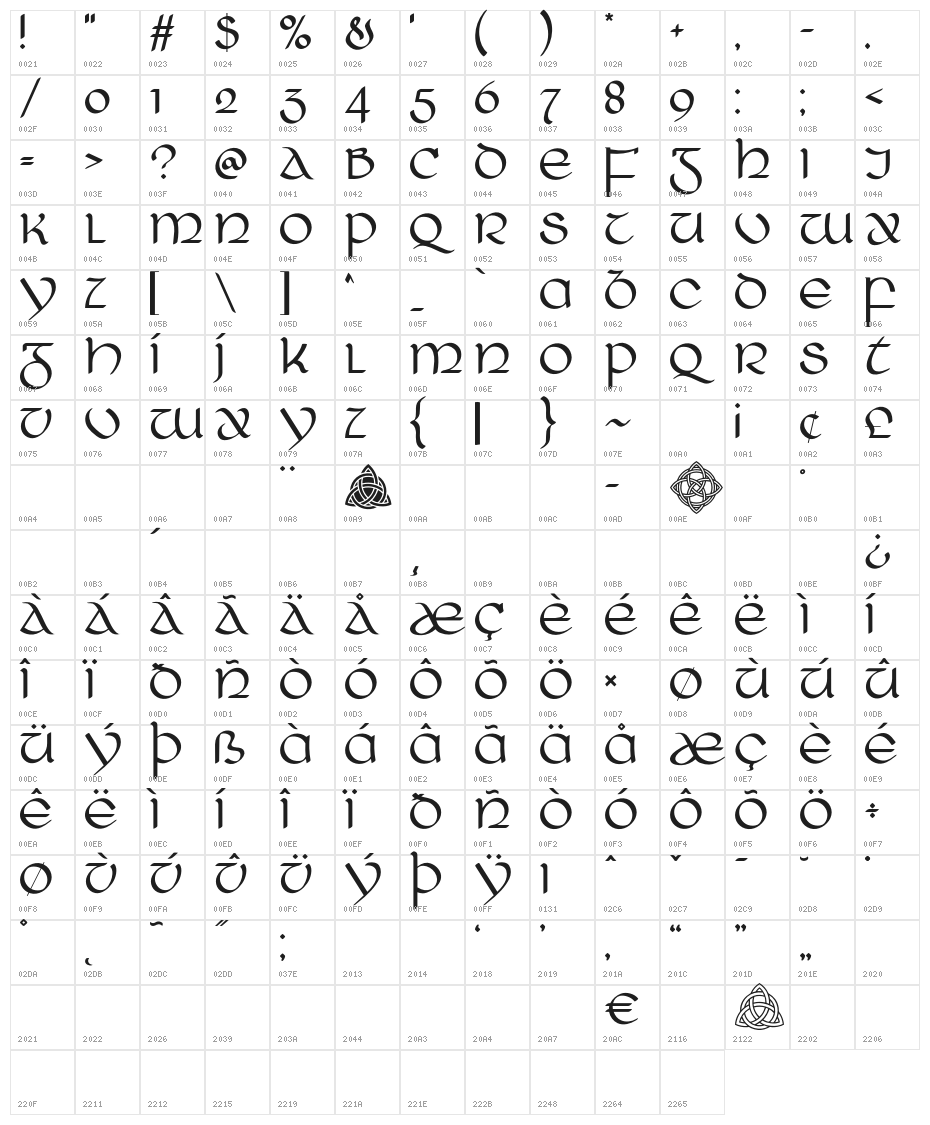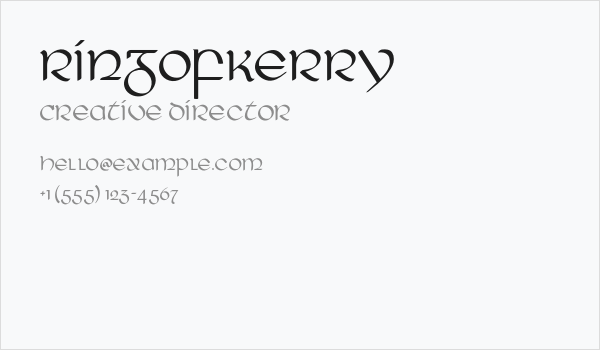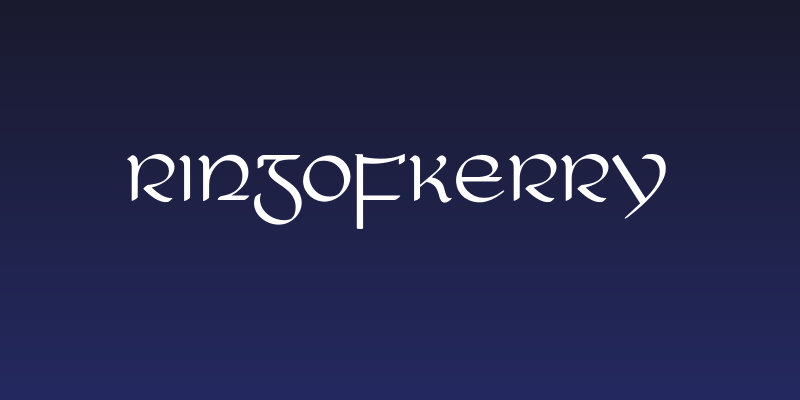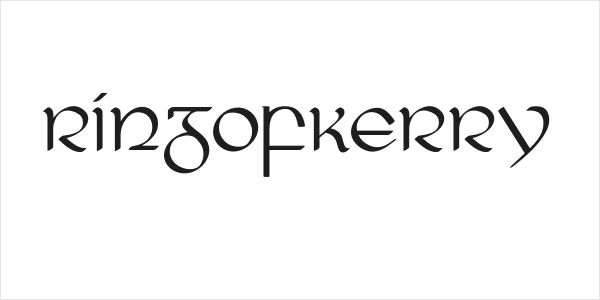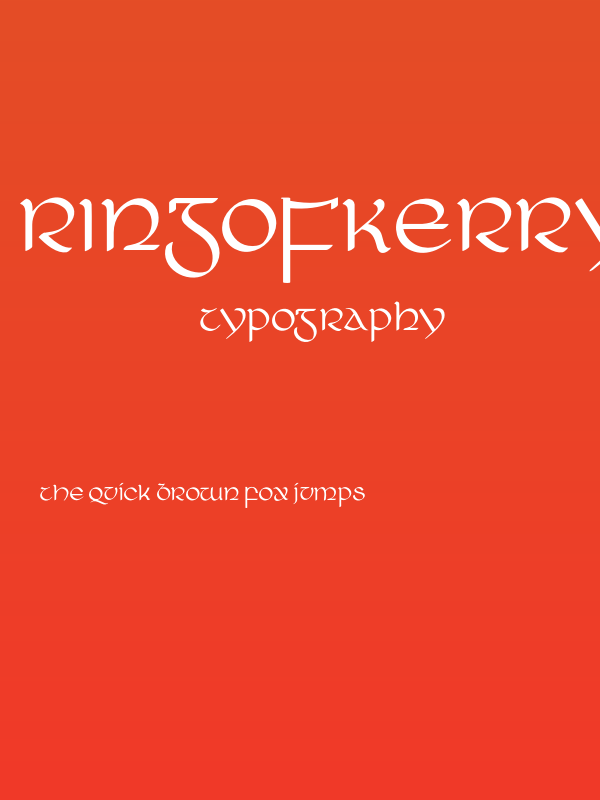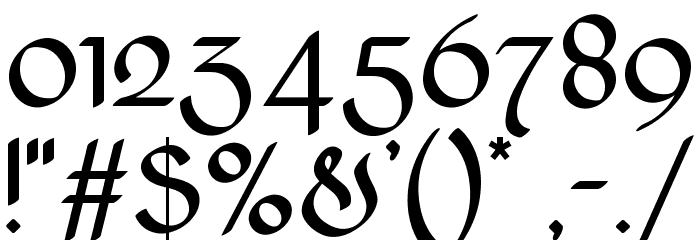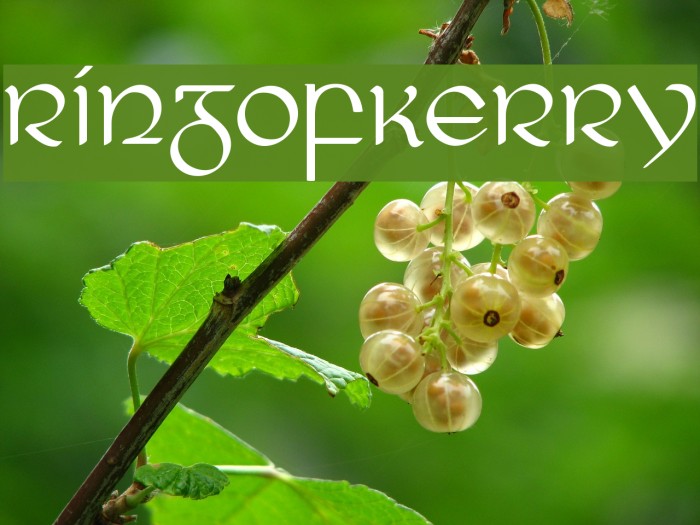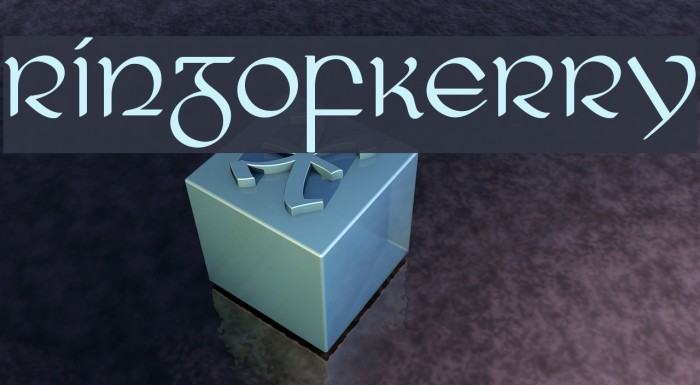
RingofKerry Font
RingofKerry Description
This font features a unique blend of modern and traditional elements, characterized by its elegant and flowing letterforms. The uppercase letters exhibit a distinct calligraphic influence with sharp, angular serifs and smooth curves, creating a dynamic and sophisticated appearance. The lowercase letters maintain a consistent style, with a slight slant and graceful strokes that enhance readability. The numerals are bold and well-defined, complementing the overall aesthetic. Special characters are thoughtfully designed, adding to the font's versatility. This font is ideal for projects that require a touch of elegance and tradition.
| Proposed Projects | Ideal for wedding invitations, luxury branding, editorial design, and decorative signage. |